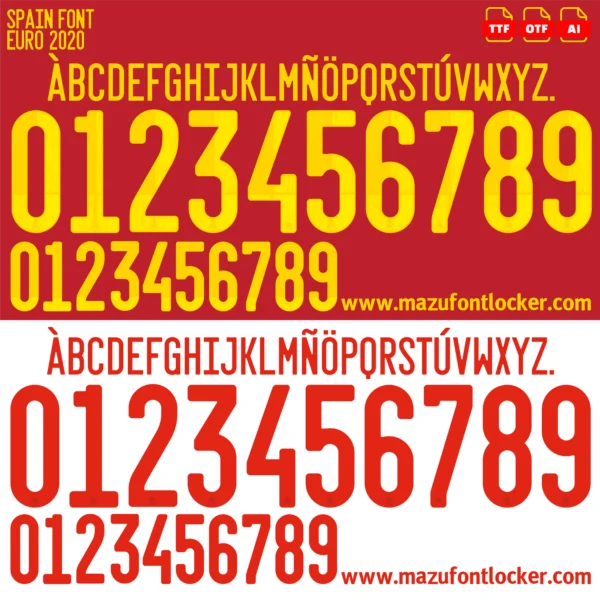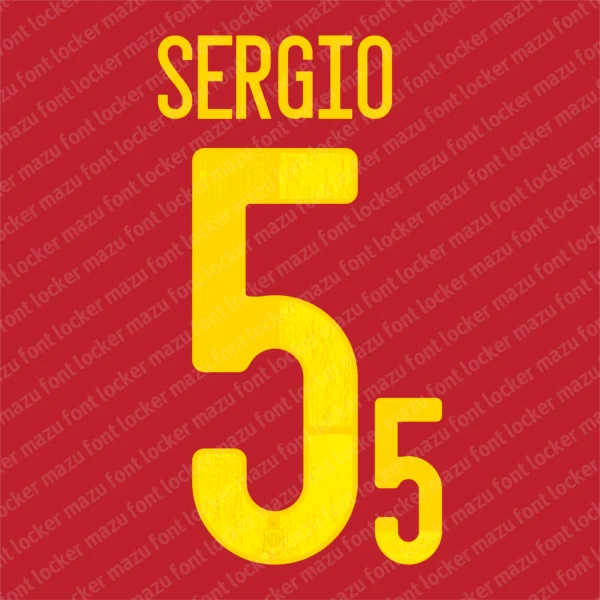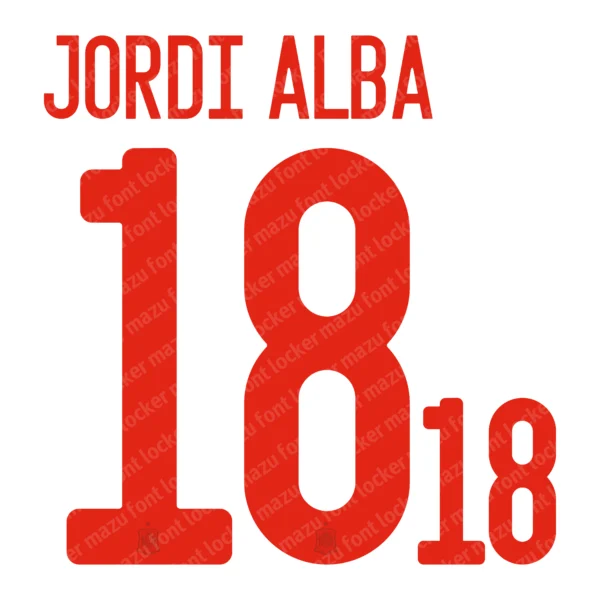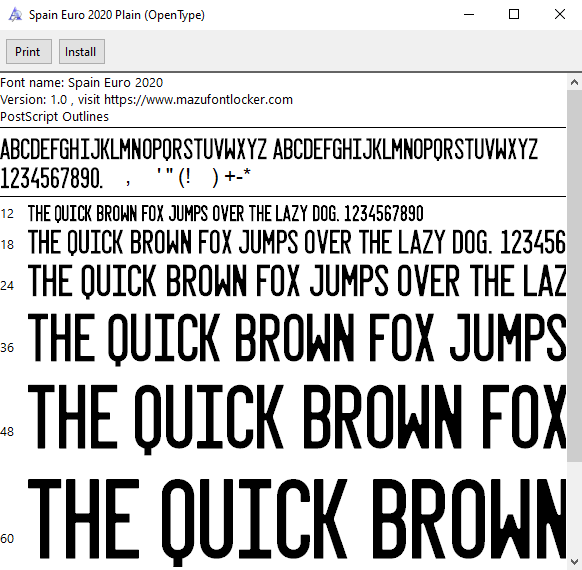
Spain Euro 2020 Font Vector – Epic La Roja Masterpiece
This font captures the unstoppable, precision-forged lettering inspired by Spain’s iconic blood-red identity, proud Iberian heritage, legendary La Roja tradition, and fearless warrior-like football spirit — delivering premium authenticity and explosive match-day energy for professional jersey mockups, football graphics, sports branding, fan designs, and high-end creative projects.
Spain Euro 2020 Font Vector – Stunning Red & Yellow Typeface
The Spain Euro 2020 Font Vector is a premium typeface that accurately recreates the distinctive match lettering associated with the Spain national team during the UEFA Euro 2020 tournament. This high-quality vector font kit captures the bold, clean, and instantly recognizable typography that perfectly complements Spain’s iconic red and yellow identity.
Designed for professional designers, football enthusiasts, jersey collectors, and passionate Spain supporters, the Spain Euro 2020 Font Vector delivers exceptional authenticity for creating realistic jersey mockups, football merchandise, social media graphics, match posters, squad designs, and custom fan artwork. Every character has been carefully recreated to reflect the powerful and precise visual style of one of Europe’s most successful and passionate national teams.
Why Choose Spain Euro 2020 Font Vector
This font stands out thanks to its precise vector construction and authentic national-team-inspired styling. Every letter and numeral has been meticulously recreated to match the distinctive football lettering aesthetic associated with Spain during the UEFA Euro 2020 campaign and its historic run to the title.
Whether you’re producing professional football kit templates, custom jersey concepts, or eye-catching football content, the Spain Euro 2020 Font Vector delivers a genuine match-ready appearance inspired by the identity of La Roja.
The lettering featured in the Spain Euro 2020 Font Vector combines clean geometric lines with bold modern proportions. The result is a premium and highly readable typeface that reflects Spain’s proud football heritage, iconic red and yellow colors, Spanish identity, and passionate global fanbase.
- Complete uppercase A–Z alphabet and numbers 0–9 in authentic Spain Euro 2020 inspired style
- Create authentic Spain Euro 2020 home and away jersey mockups
- Produce custom Spain-inspired merchandise and fan projects
- Build modern football graphics celebrating La Roja and their Euro 2020 triumph
Spain Euro 2020 Campaign
The UEFA Euro 2020 tournament (played in 2021) marked a historic chapter for the Spain national team as La Roja competed across Europe and ultimately lifted the trophy. The team began preparations with preseason fixtures and training camps as they built momentum for the continental championship. Spain’s official schedule covered group-stage battles, knockout drama, and a memorable final run. Wearing their iconic red and yellow colors, Spain continued to represent a proud football tradition built on technical excellence, passion, and a strong connection with supporters across Spain and around the world.
The Spain Euro 2020 Font Vector is inspired by the distinctive football typography and visual identity associated with this triumphant campaign, making it an excellent choice for designers creating custom jersey concepts, football posters, squad graphics, matchday artwork, and fan-made projects. For official national team information, news, squad updates, fixtures, and match information, visit the official RFEF website.
The Spain Euro 2020 Font Vector is an independently designed typeface package inspired by the official shirt lettering and visual identity associated with the Spain national team during the UEFA Euro 2020 tournament. It has been carefully recreated for football enthusiasts, graphic designers, collectors, jersey creators, and fans producing custom football concepts, digital artwork, and fan-made projects. Please note that this is a fan-made design resource and is not an official product of the Royal Spanish Football Federation (RFEF), UEFA, or any associated organization.